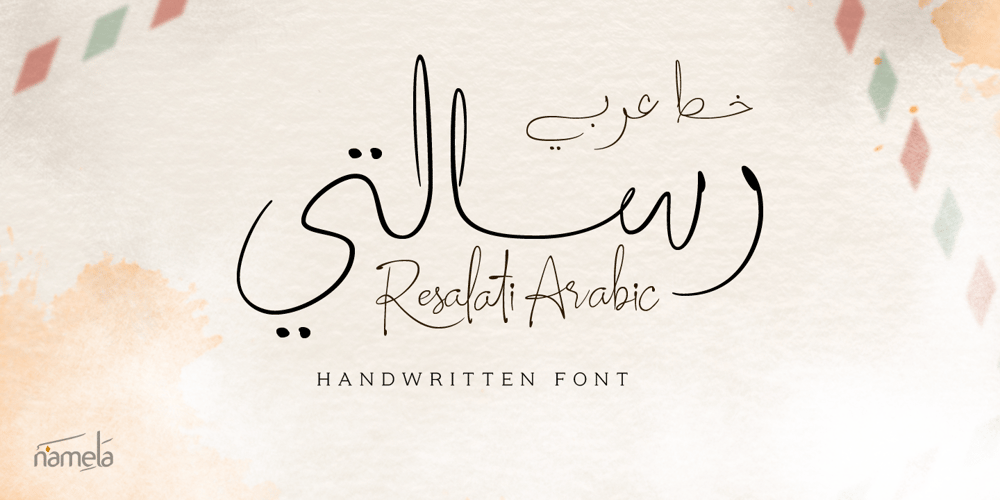
Resalaty Arabic
Resalaty Arabic font
Resalaty Arabic Font Family was designed by Nur Syamsi and published by NamelaType. Resalaty Arabic contains 1 styles and family package options. This is Resalaty added Arabic features with a pen handwriting style, for more fun text